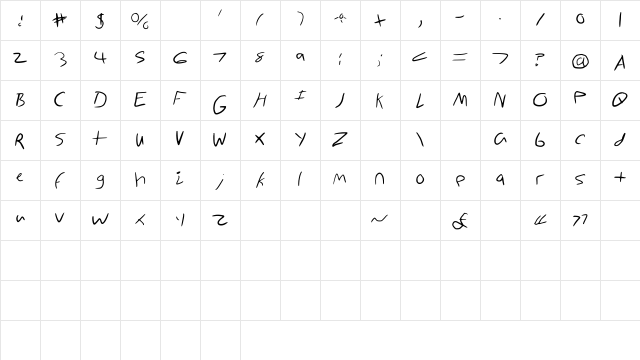
Cartoony_Worldoz Medium
Design Context for Cartoony_Worldoz
Cartoony_Worldoz has an approachable, lighthearted character - its loose, expressive forms are well-suited to children's content, casual branding, and fun-first design.
Font Pairing: Pairs well with a rounded or humanist sans for body copy, maintaining the friendly tone without relying on Cartoony_Worldoz to carry extended reading.
Pro Tip: Use Cartoony_Worldoz at larger display sizes where its expressive character can land. Pair with a clean, simple sans for body copy to maintain readability.